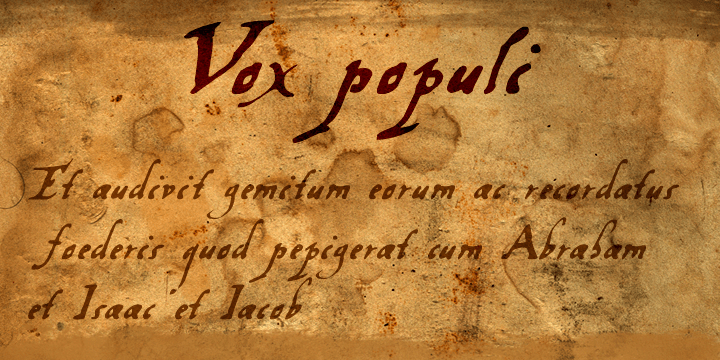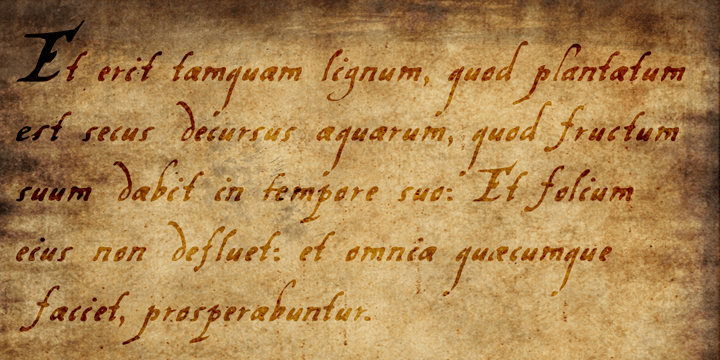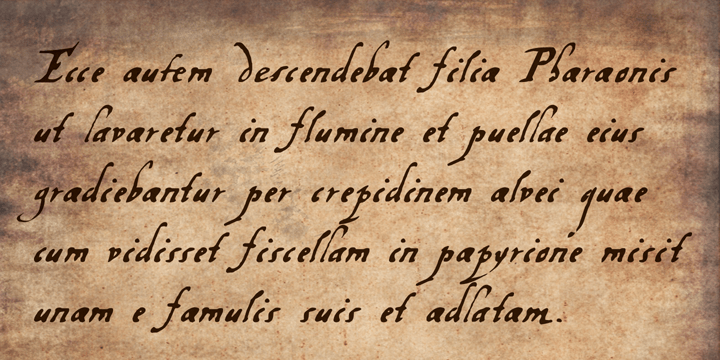
Vox Populi
Vox Populi was modeled after an early 17th century Latin translation of a Greek epos. It is a cursive typeface with a rough edge to it - not unlike the rather decayed original. Vox comes with a whole bunch of alternates and ligatures for that ?ancient parchment look?.